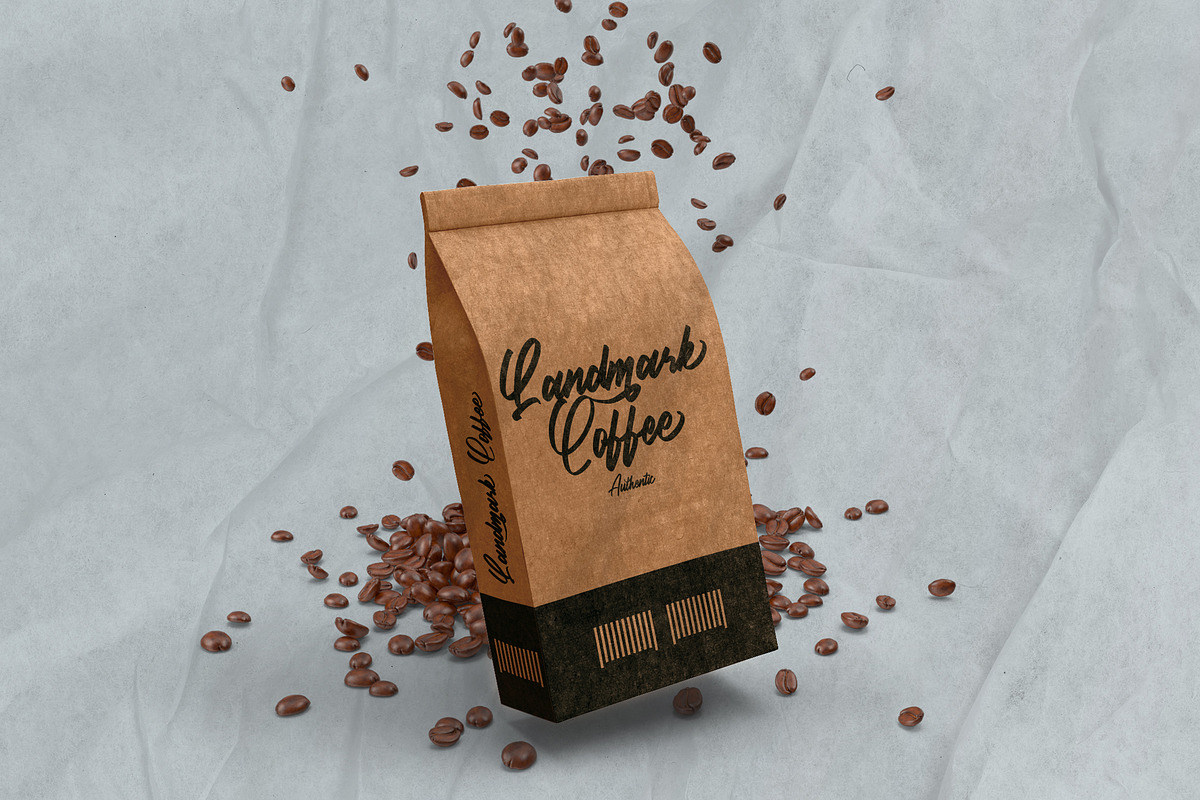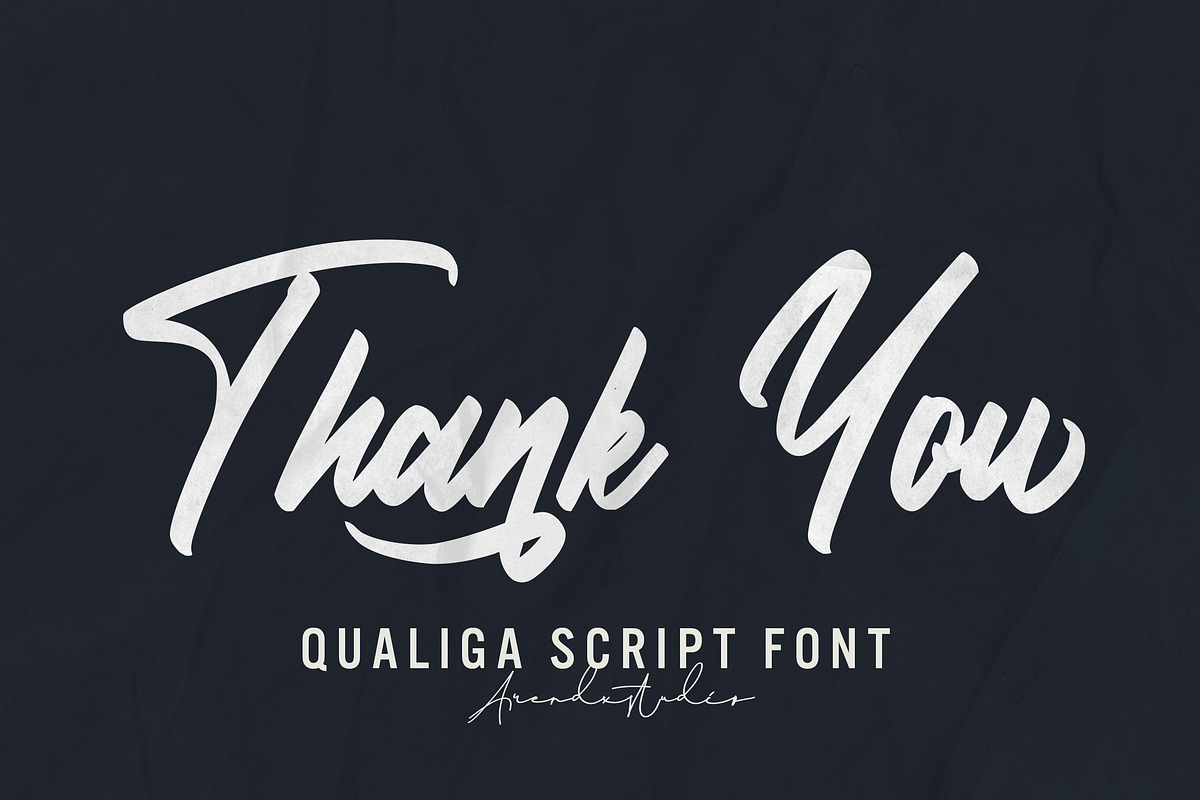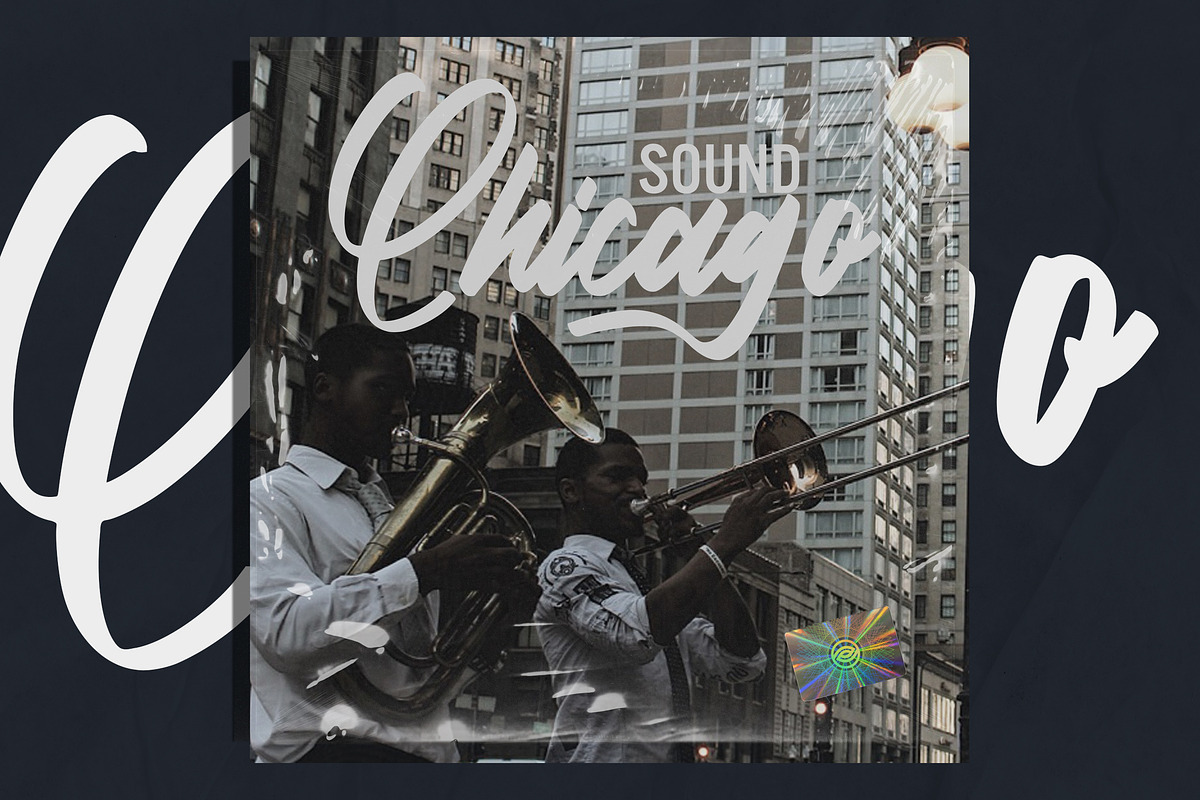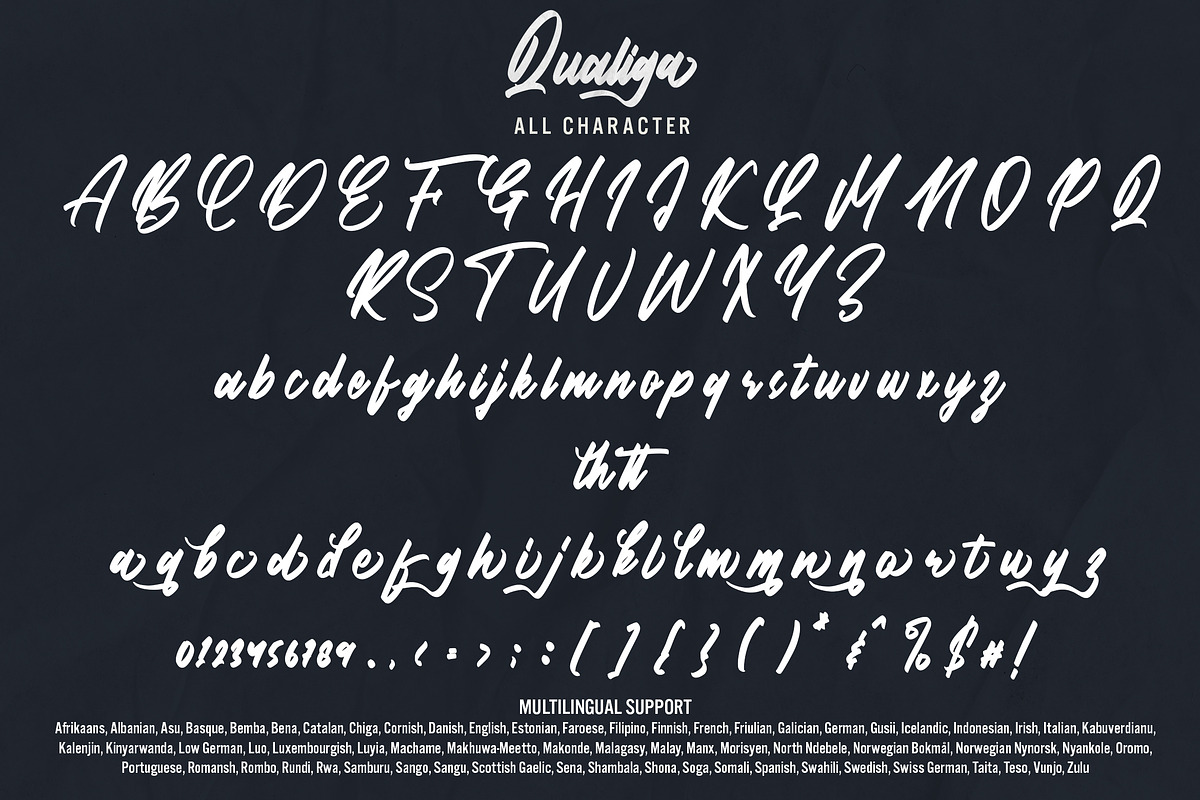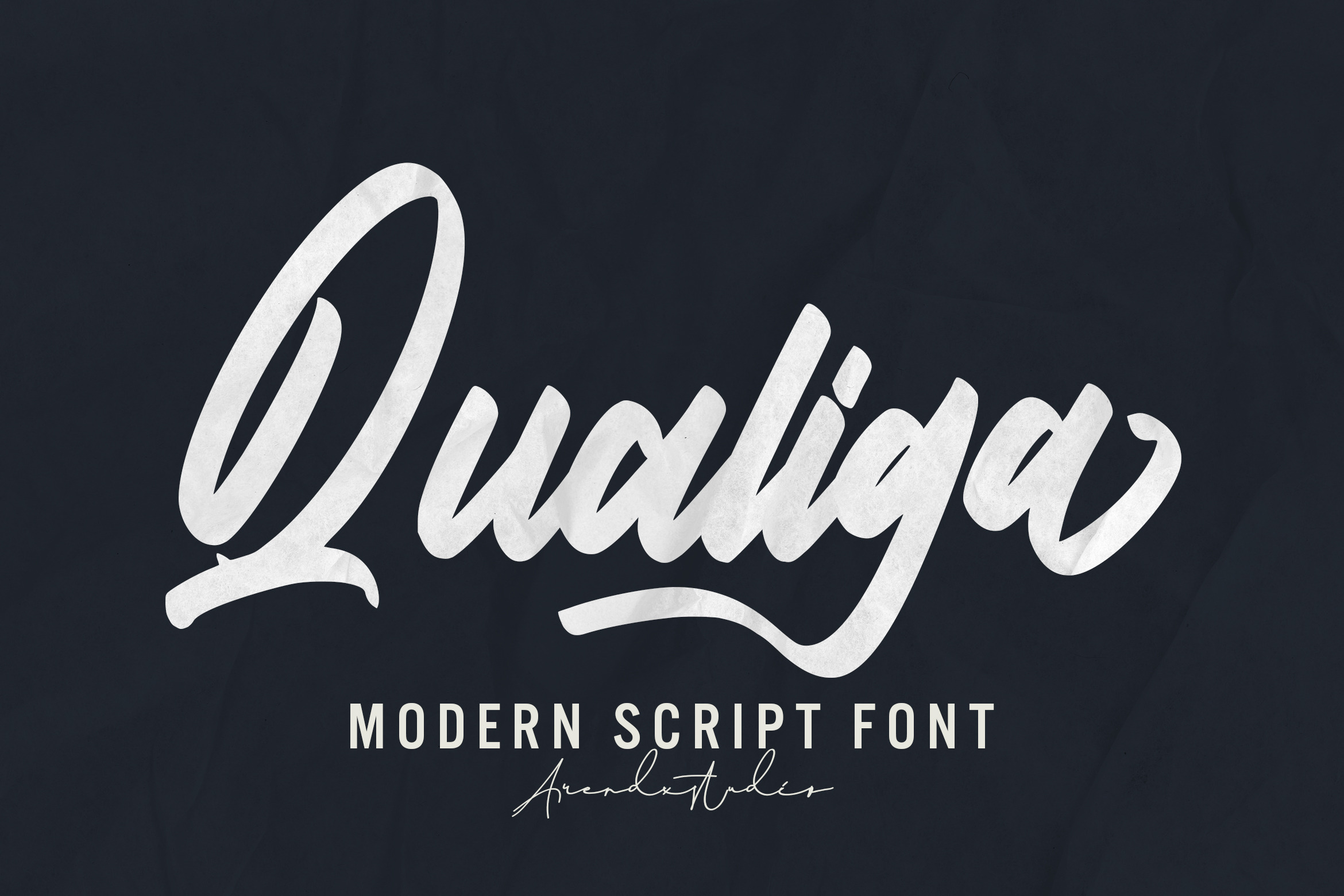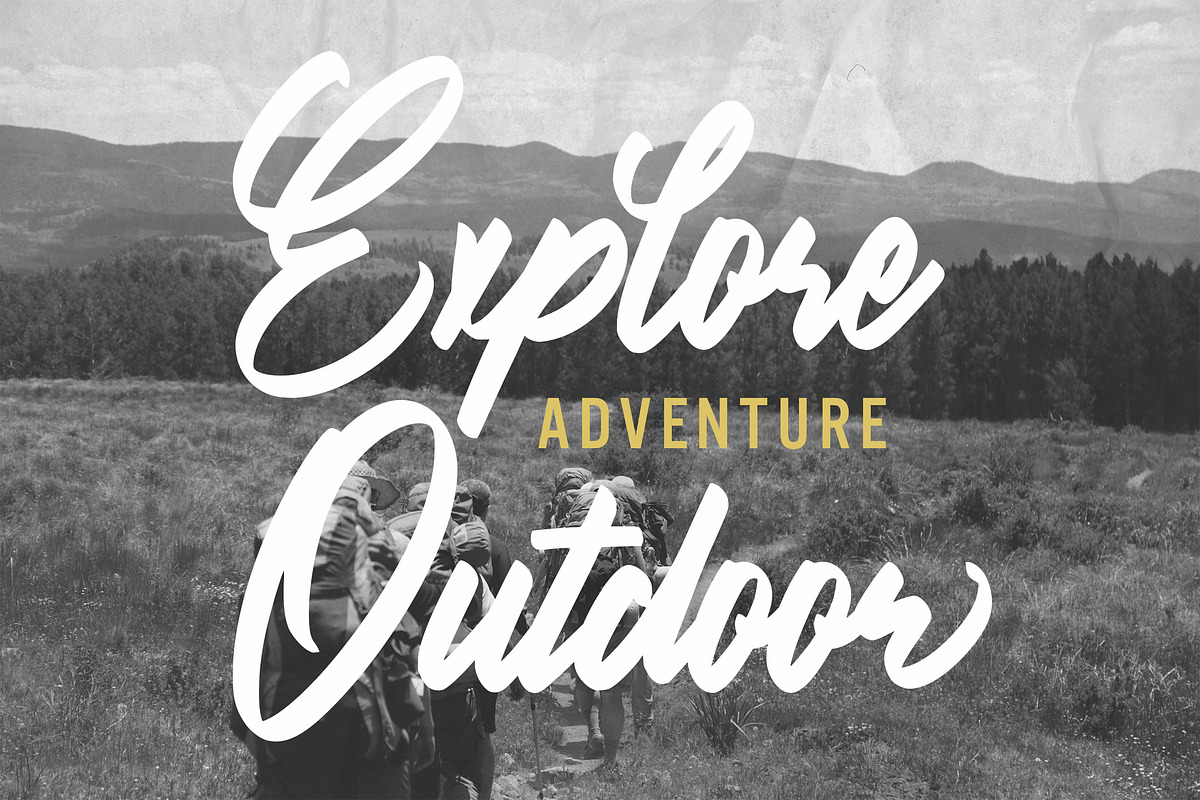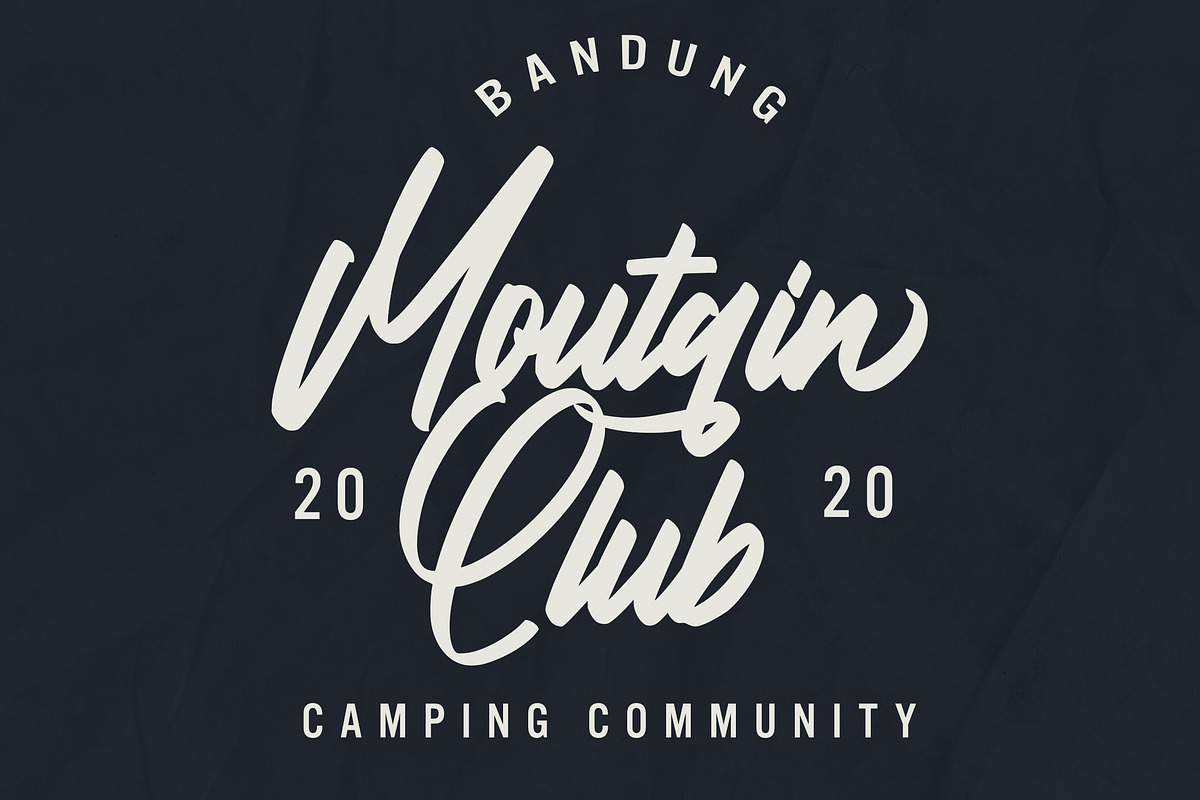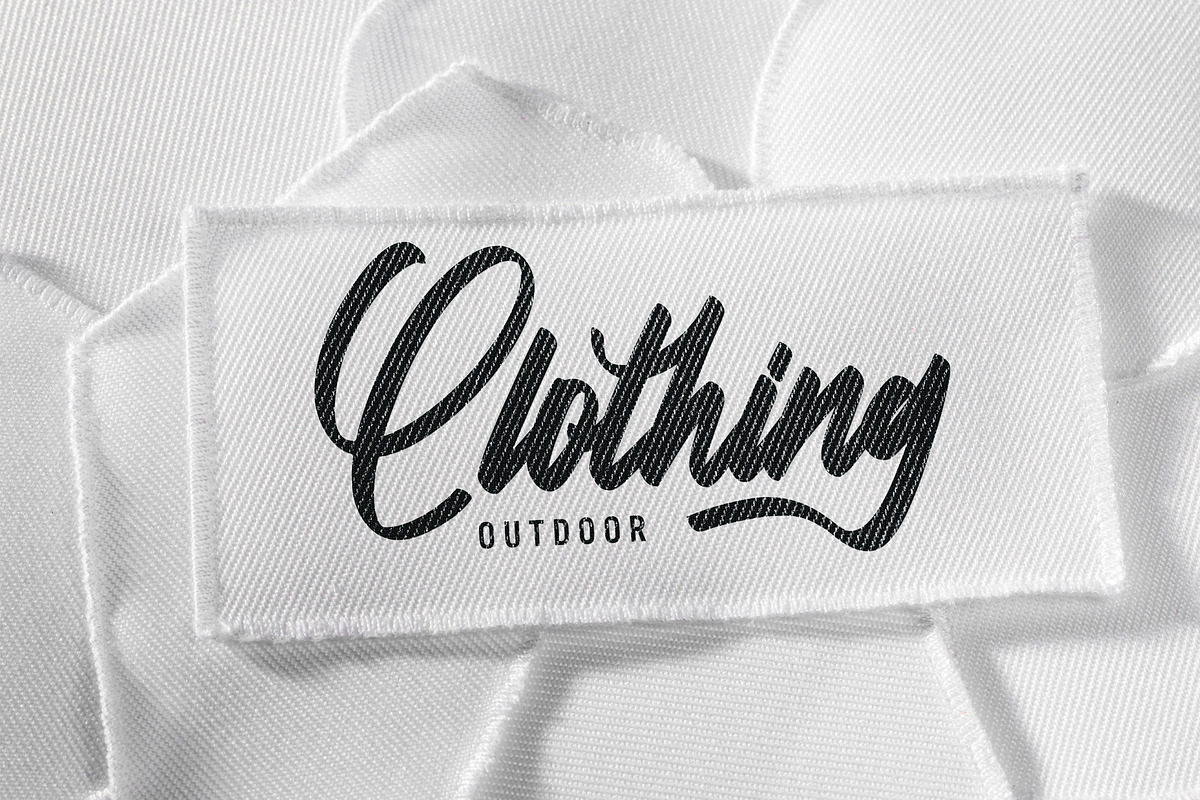
Qualiga - Script Font
Introducing a Qualiga script fonts with sharp and beautiful letters that create fonts that are modern, trendy and elegant. Qualiga came with opentype features such stylistic alternates, stylistic sets & amp; amp; ligatures good for logotype, poster, badge, book cover, tshirt design, packaging and any more.
Features : • Character Set A-Z • Numerals & Punctuations (OpenType Standard) • Accents (Multilingual characters) • Ligature • Alternate